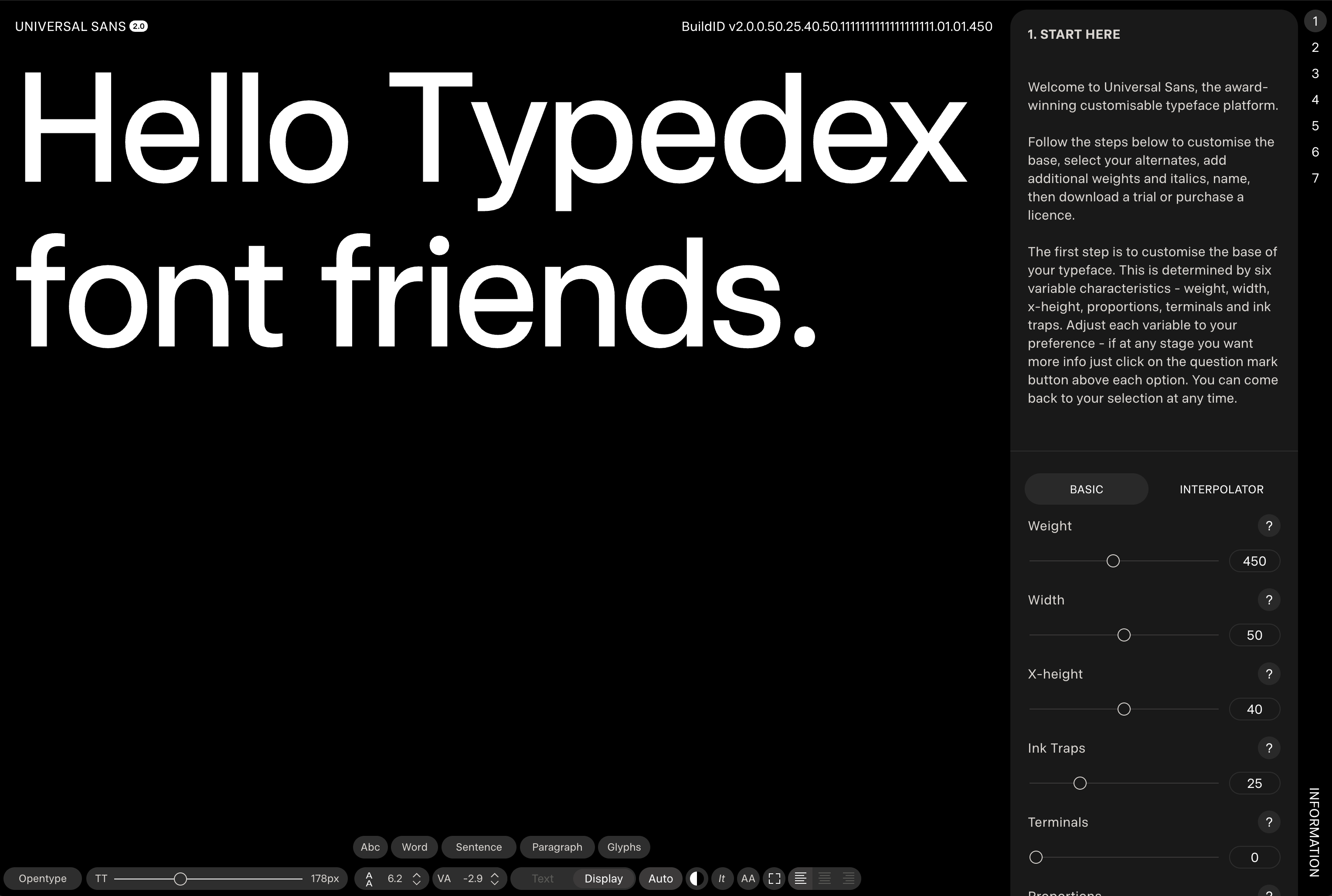
Universal Sans
Family Type · Briton Smith · 2020
Universal Sans is an award-winning customizable typeface platform designed to make custom type accessible to a wider audience. Launched in 2020, it features six variable axes and extensive stylistic alternates, allowing for infinite unique outcomes while adhering to fundamental typographic principles. The typeface connects diverse sans serif styles, innovating for the 21st century with unique design features enabled by technology.